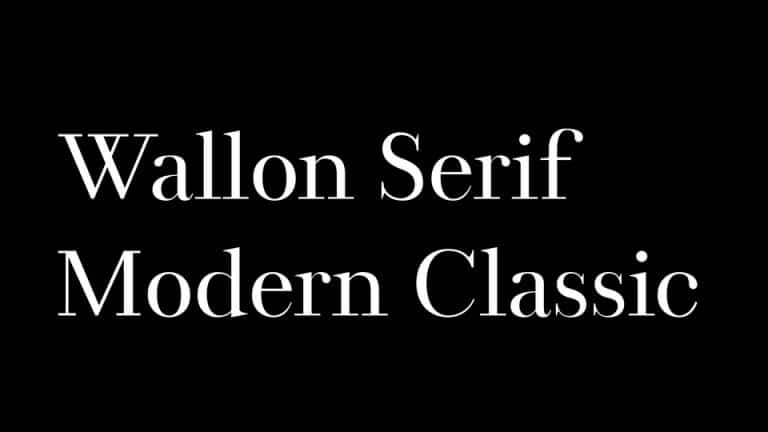
Wallon Serif Font
Wallon Serif Font is inspired by the old-style serif font and the character structures of today’s modern serif fonts. Made from font designer named Jeong-il Seok. This tont is a high-contrast serif font inspired by transitional typefaces with contemporary elements in character shapes and stroke details. This is perfect to sweeten up your headlines, branding visual identity, editorial, poster, and etc.